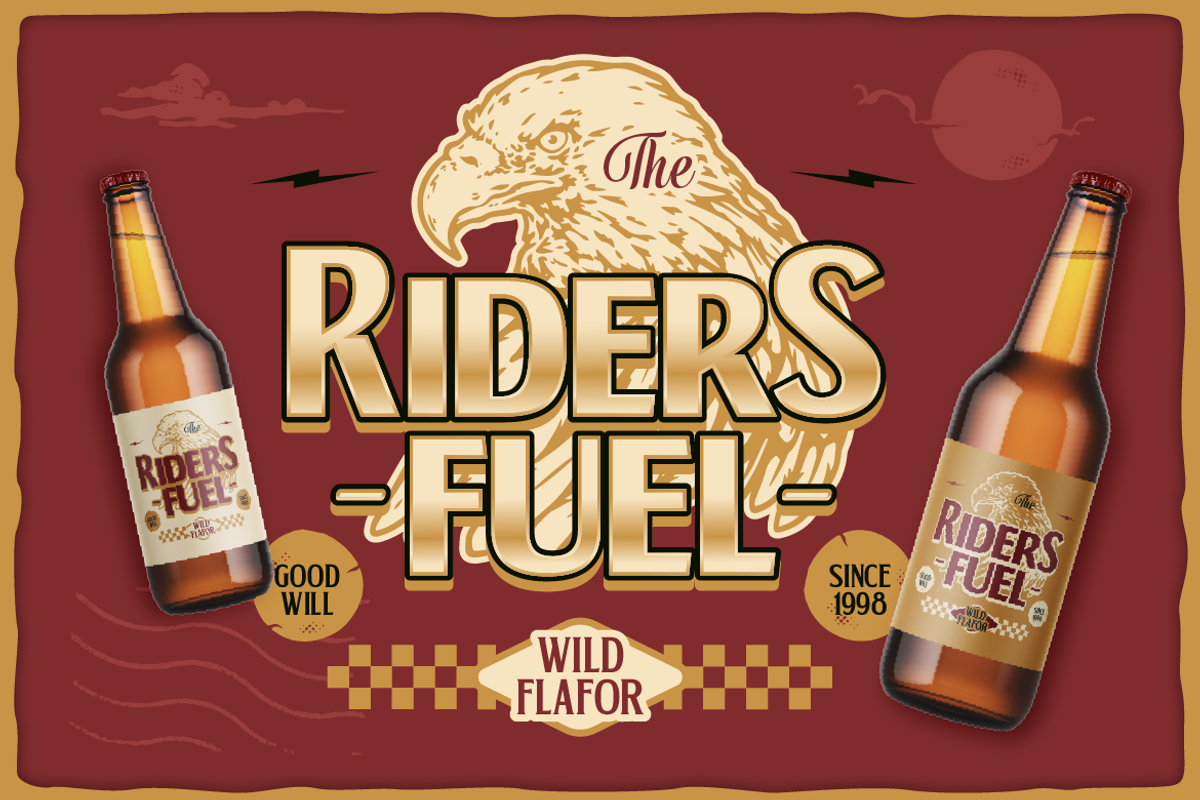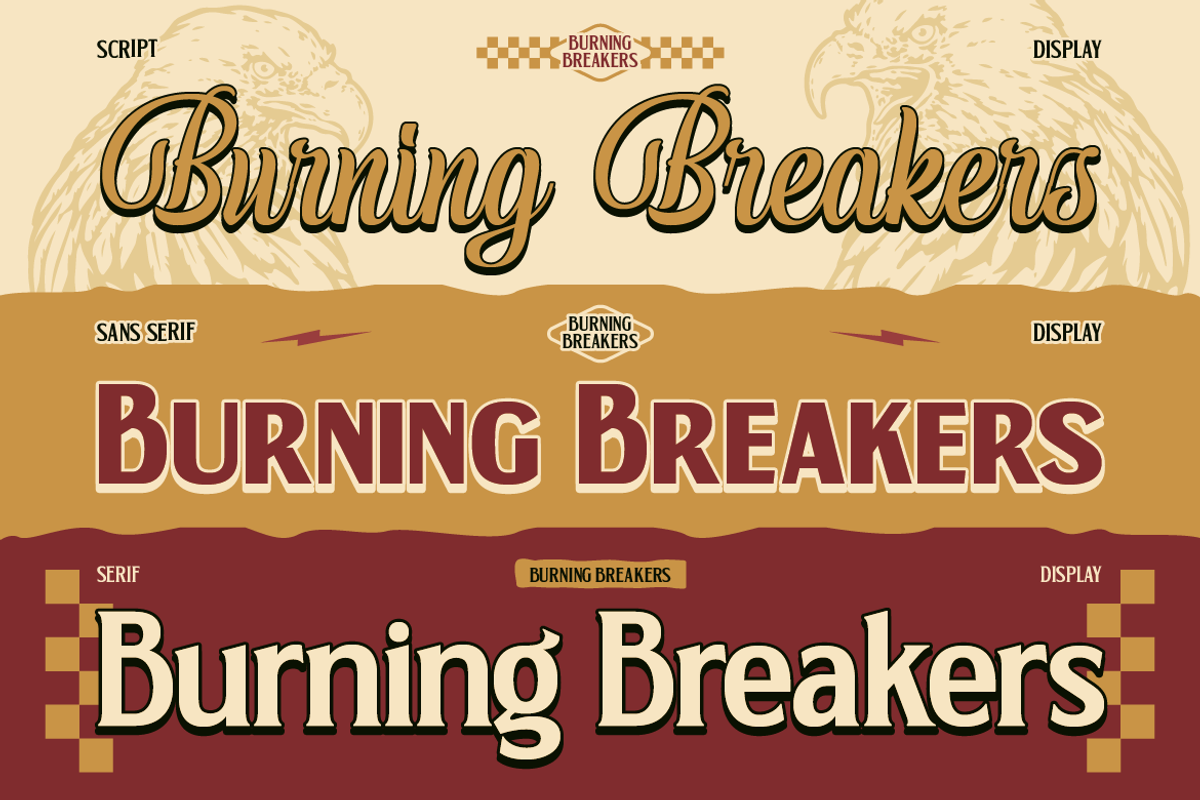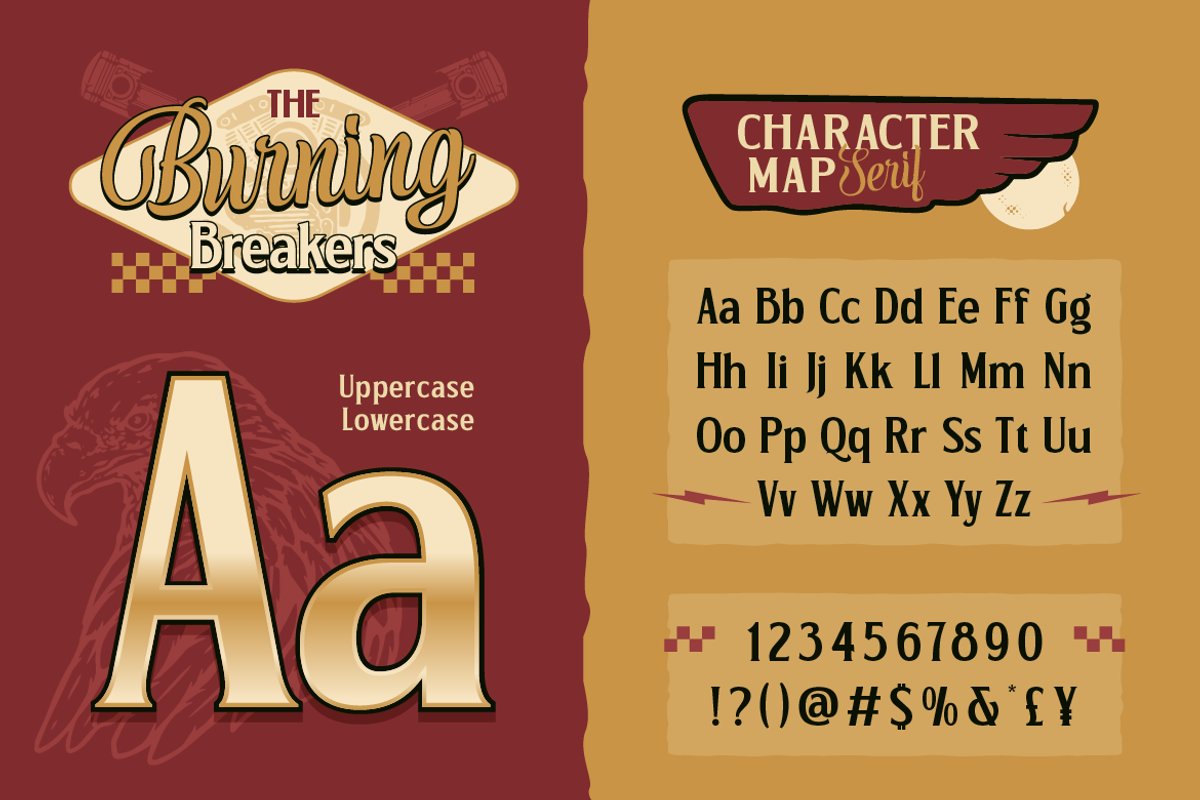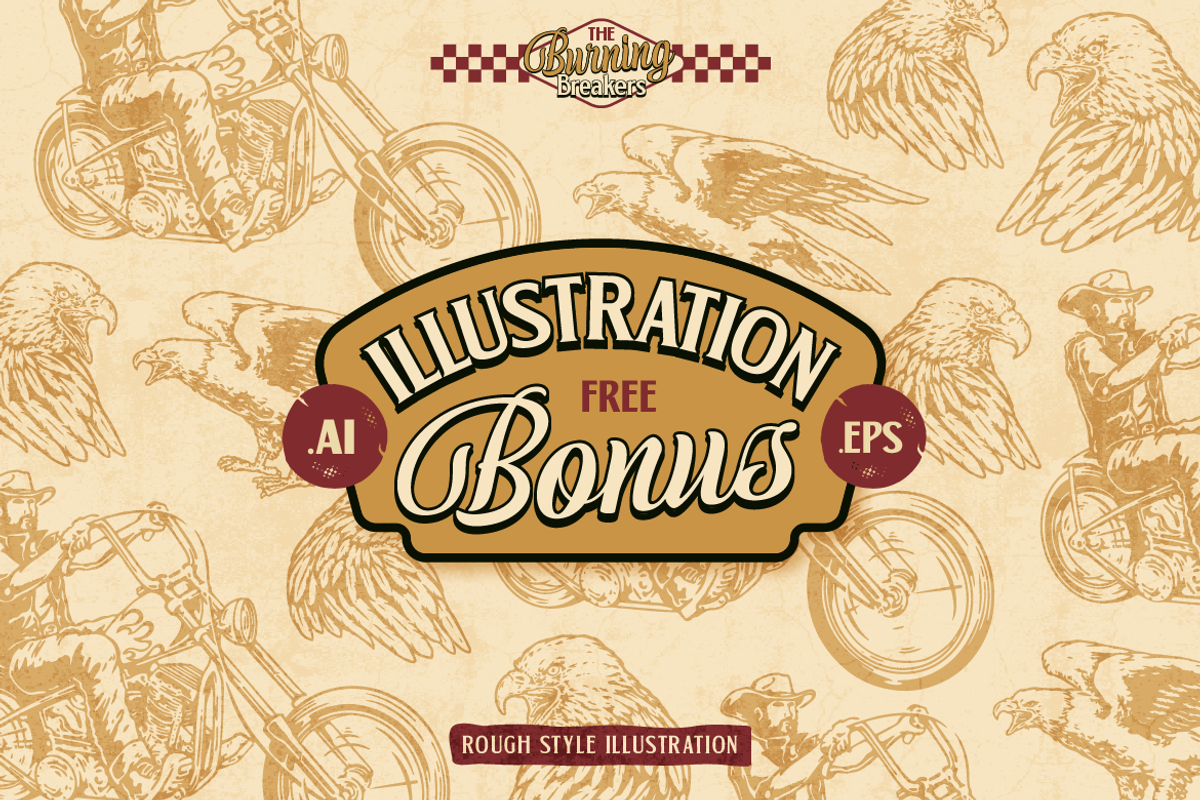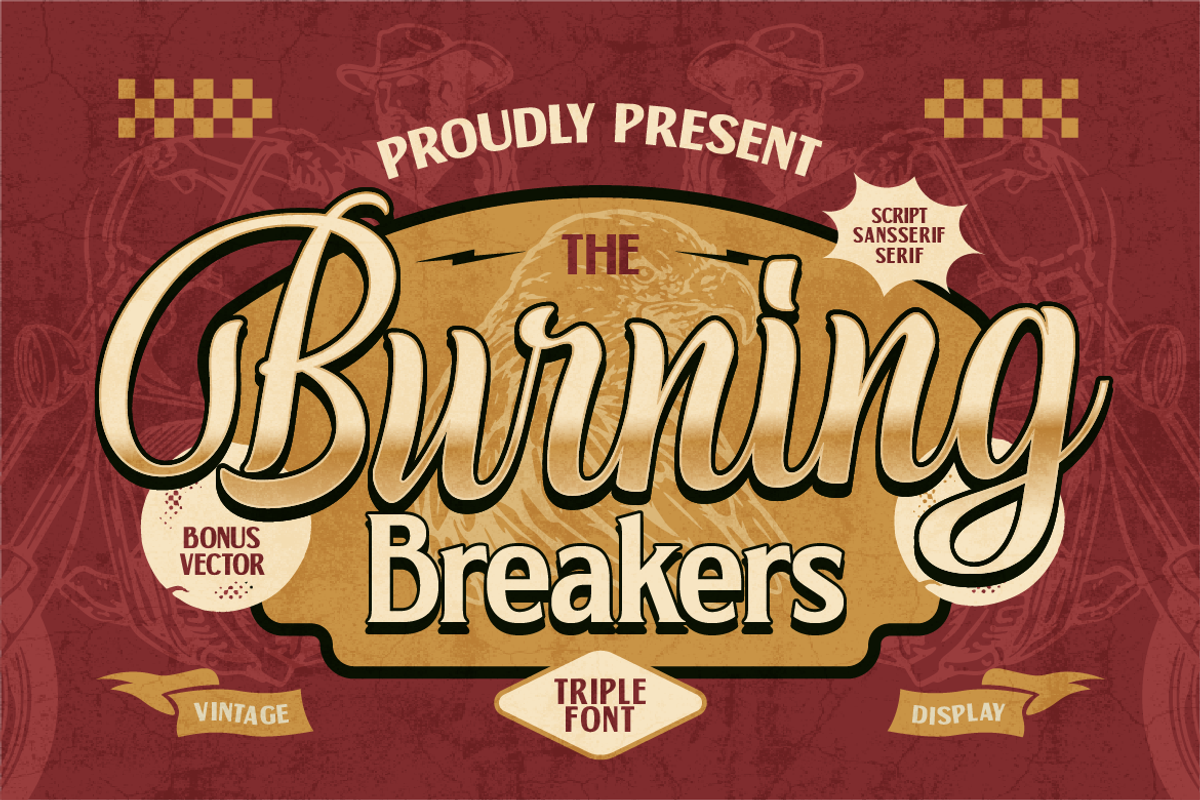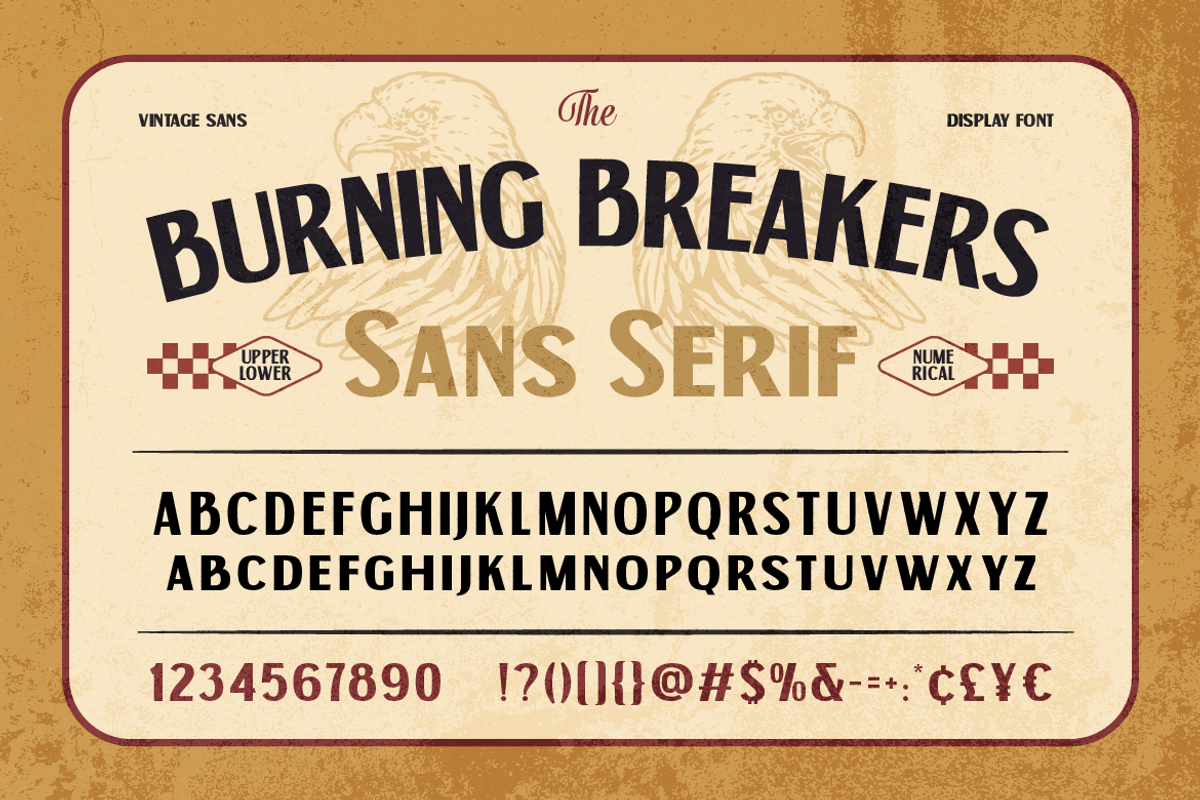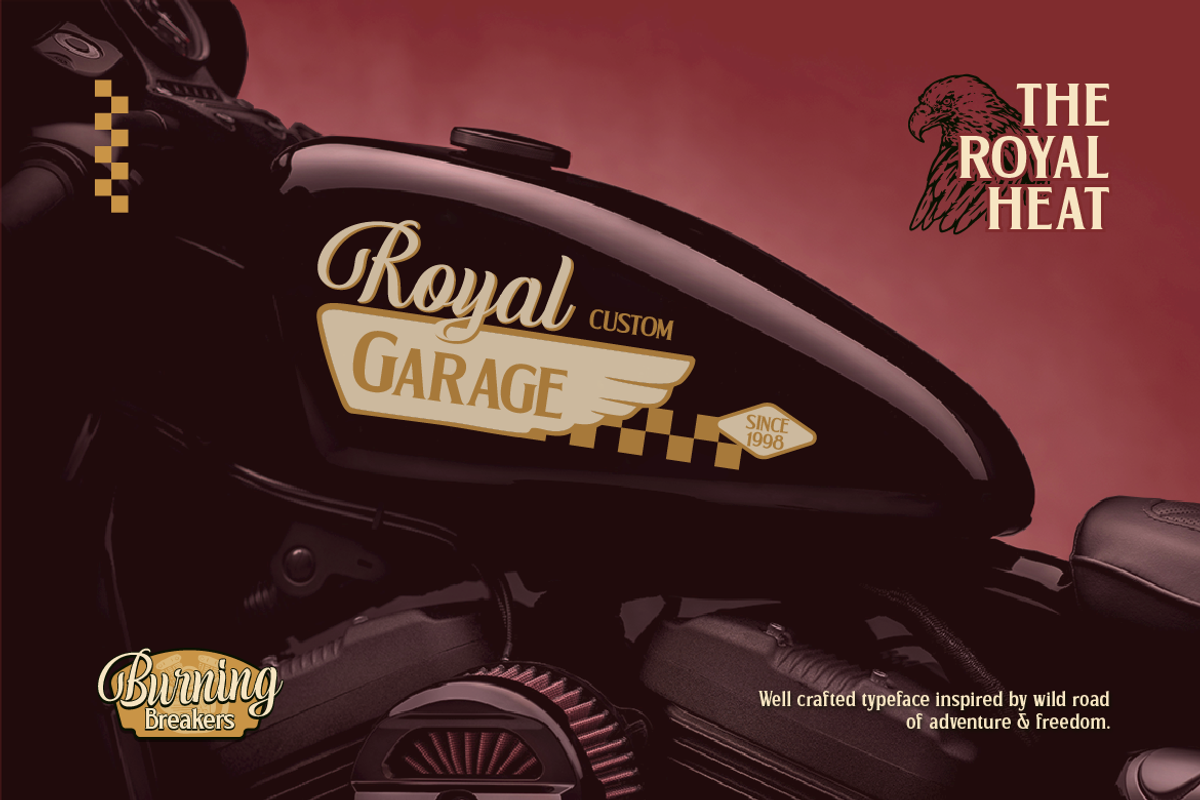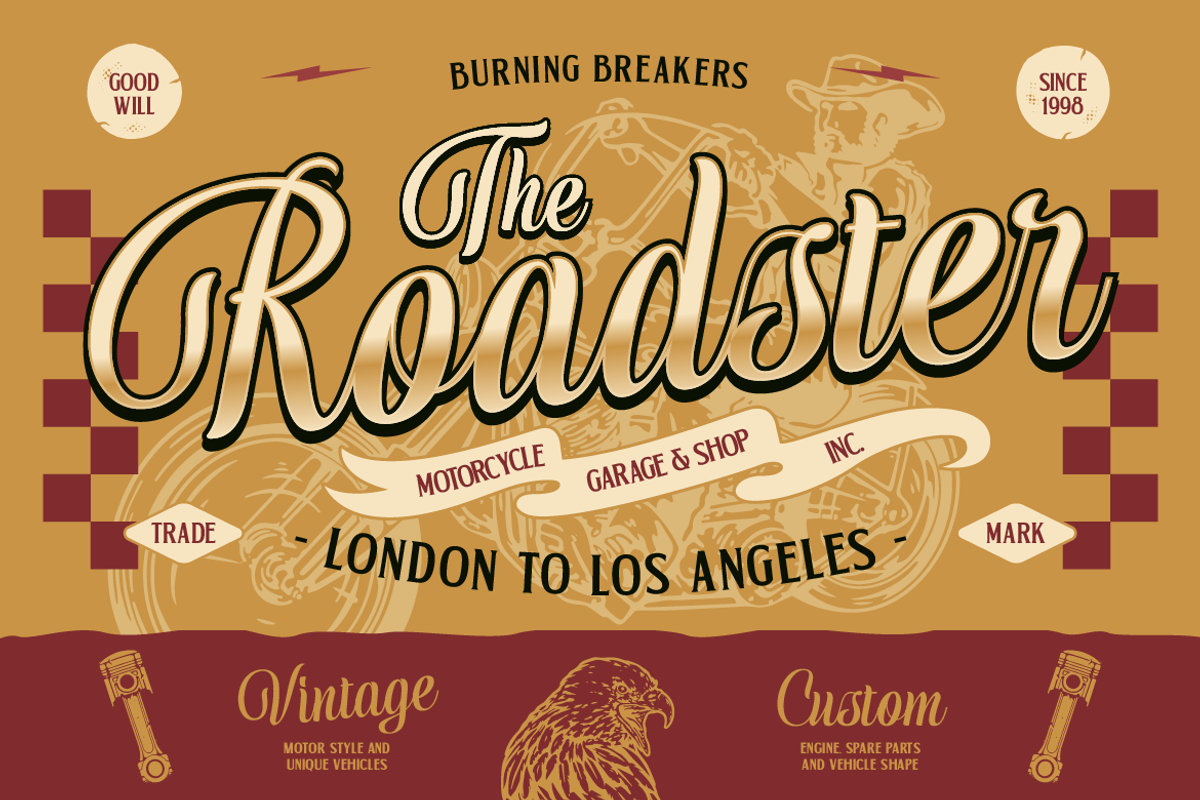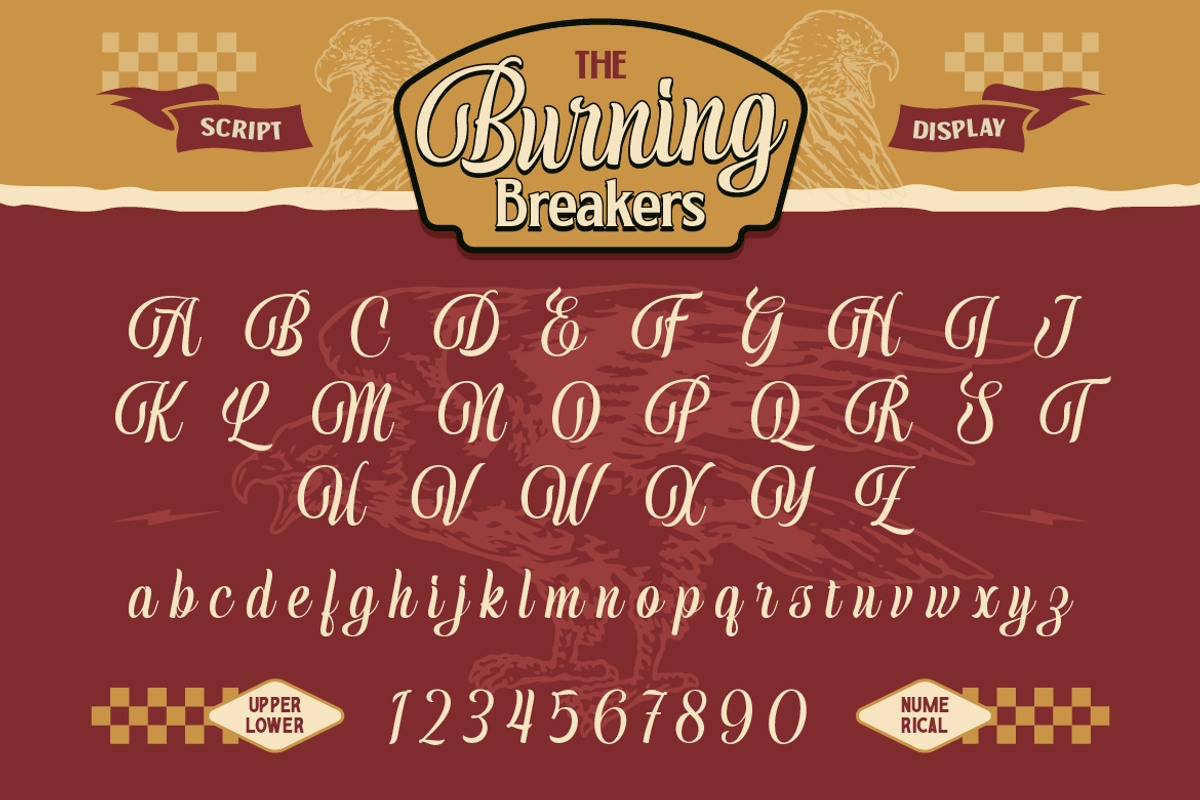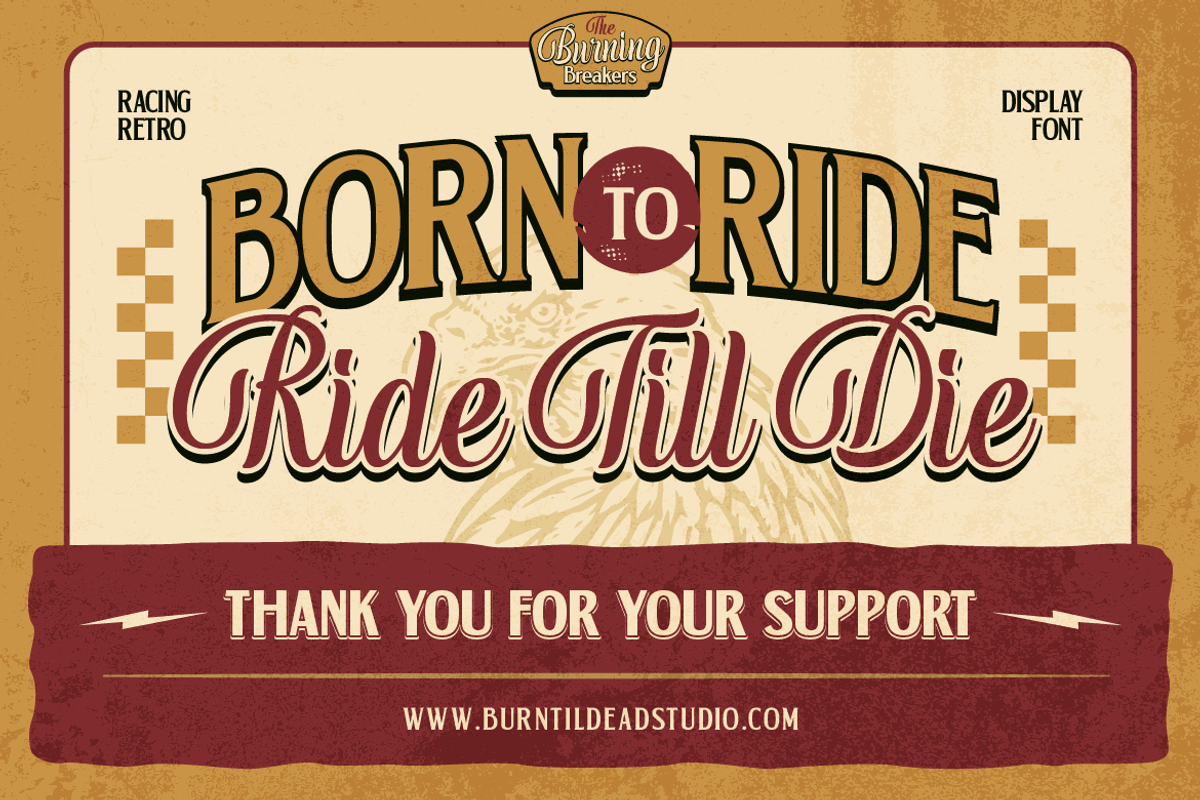
Burning Breakers - Trio Fonts
Proudly present, Burning Breakers, a triple font combining serif, sans serif, and script styles. Inspired by American motorcycles, this font reflects the spirit of adventure and freedom with its vintage, classic, and masculine design. Burning Breakers is perfect for logos, apparel, posters, and more. It also comes with bonus vector illustrations, enhancing its strong connection to motorcycle culture. This font supports multilingual characters, making it an excellent choice for global use.